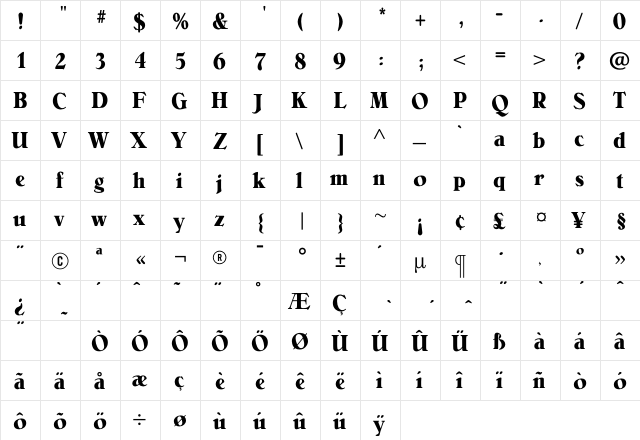
BelliniBoldCondensed Regular
Design Context for BelliniBoldCondensed Typeface
BelliniBoldCondensed offers clean, dependable letterforms without strong stylistic allegiance, making it a practical choice for designers who need flexibility. Its bold stroke weight gives it real presence on the page. The condensed width makes it efficient for tight spaces without sacrificing legibility.